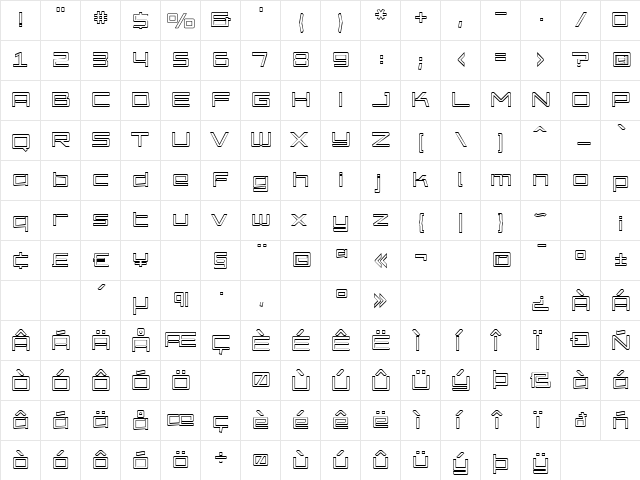
Amp Outline
Design Context for Amp Typeface
Amp brings ornamental detail and strong personality to headlines and identities, where visual impact matters more than quiet functionality.
Font Pairing: Pair with a clean neutral sans-serif for body copy to let Amp's character lead without overwhelming the composition.
Pro Tip: Treat Amp as the centrepiece of your typographic hierarchy. One strong heading set in a decorative face can carry an entire layout.